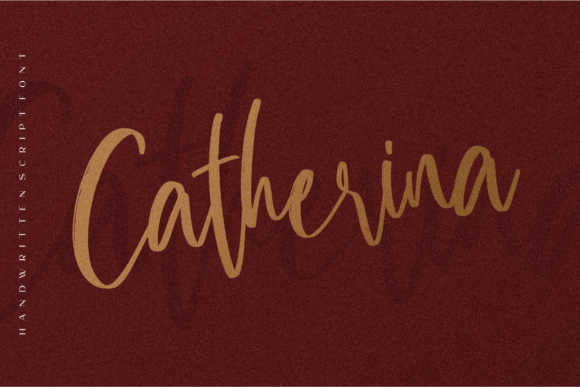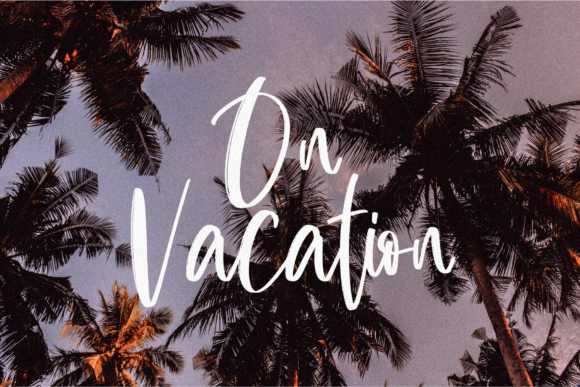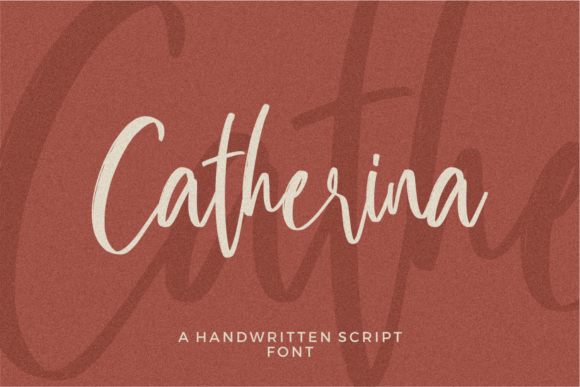
Catherina Script,Script Font
Catherina is a relaxed and adaptable handwritten font. It is the best choice for creating eye catching logos, branding and quotes. Every letter has a unique and beautiful touch, which will make your design come alive!